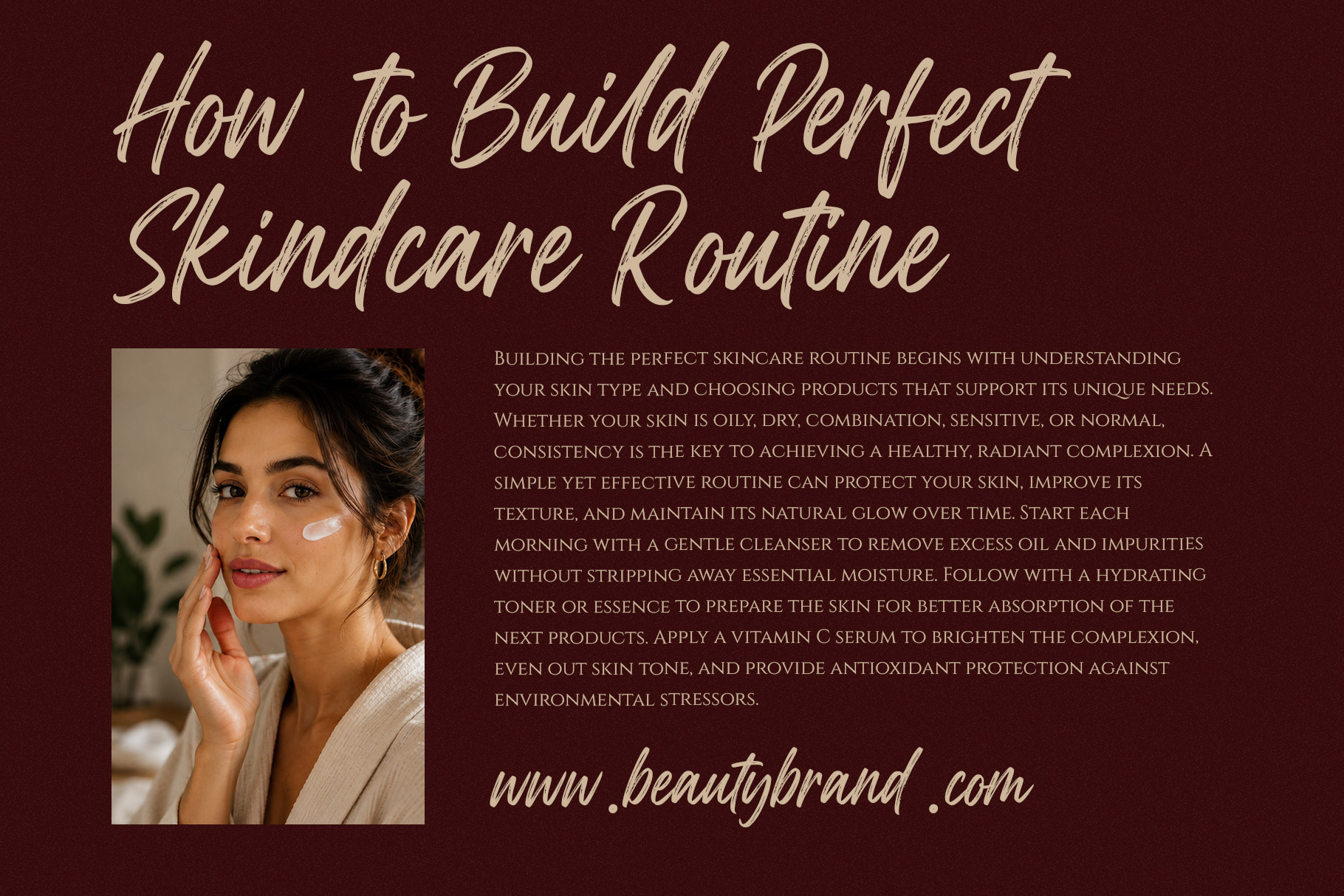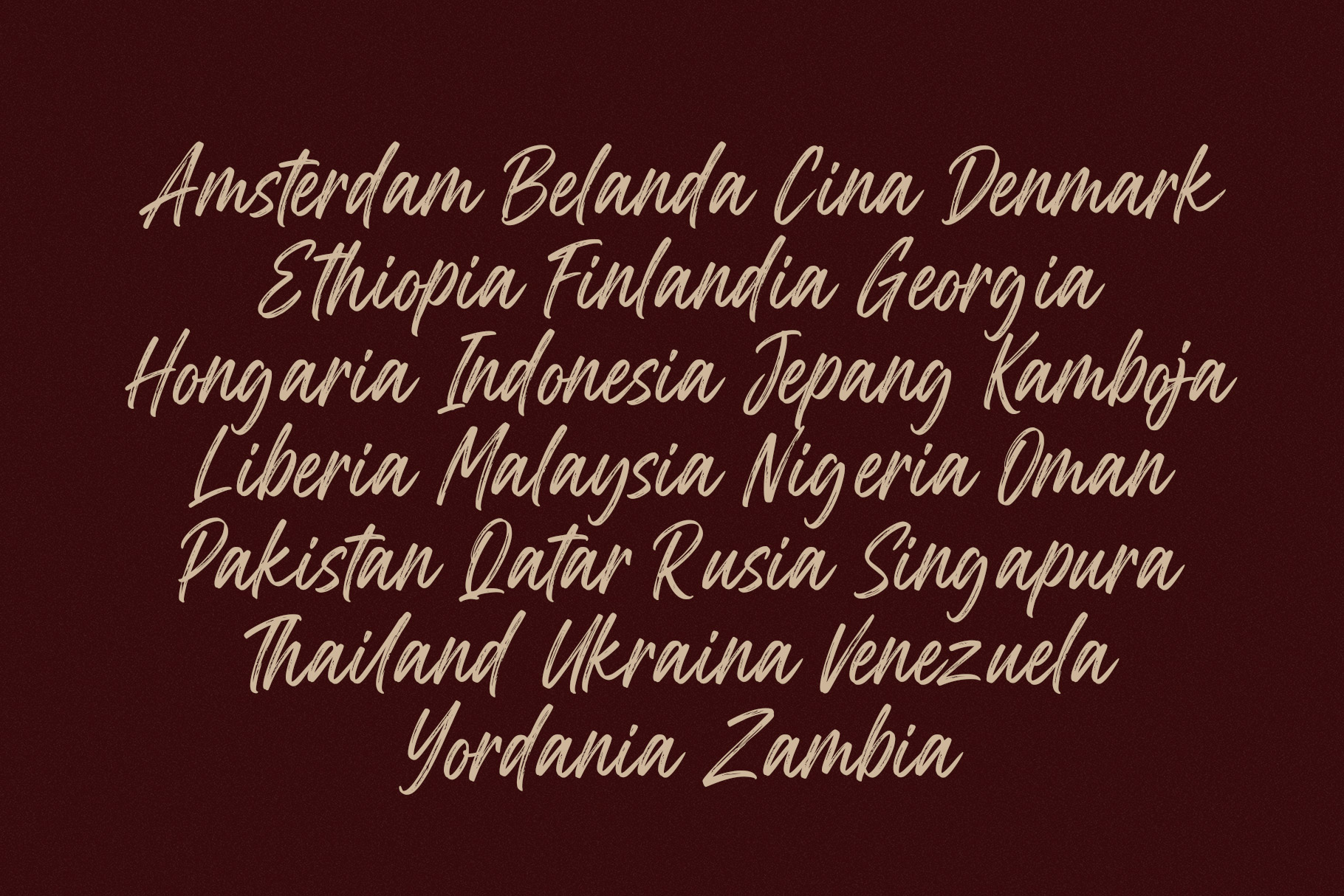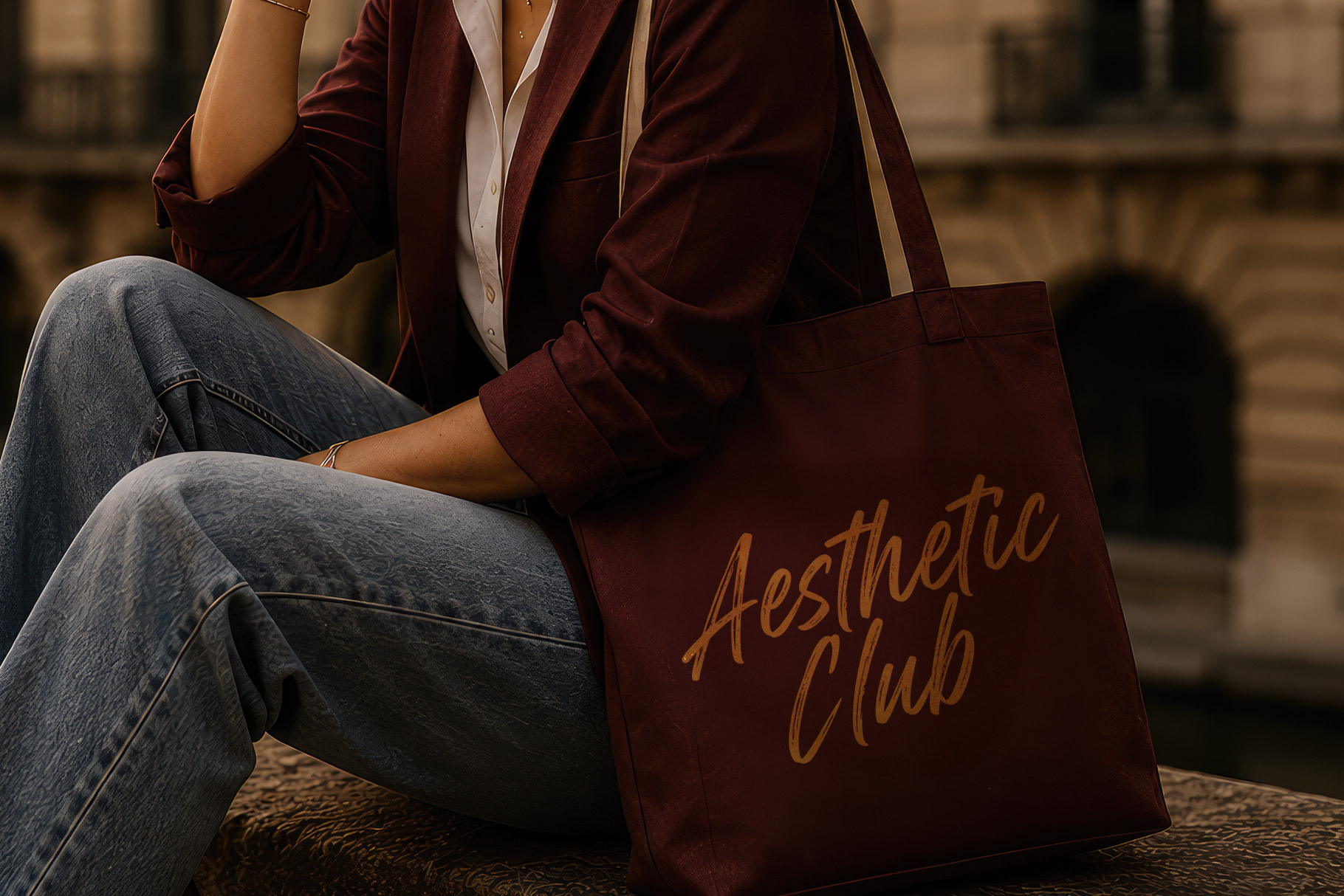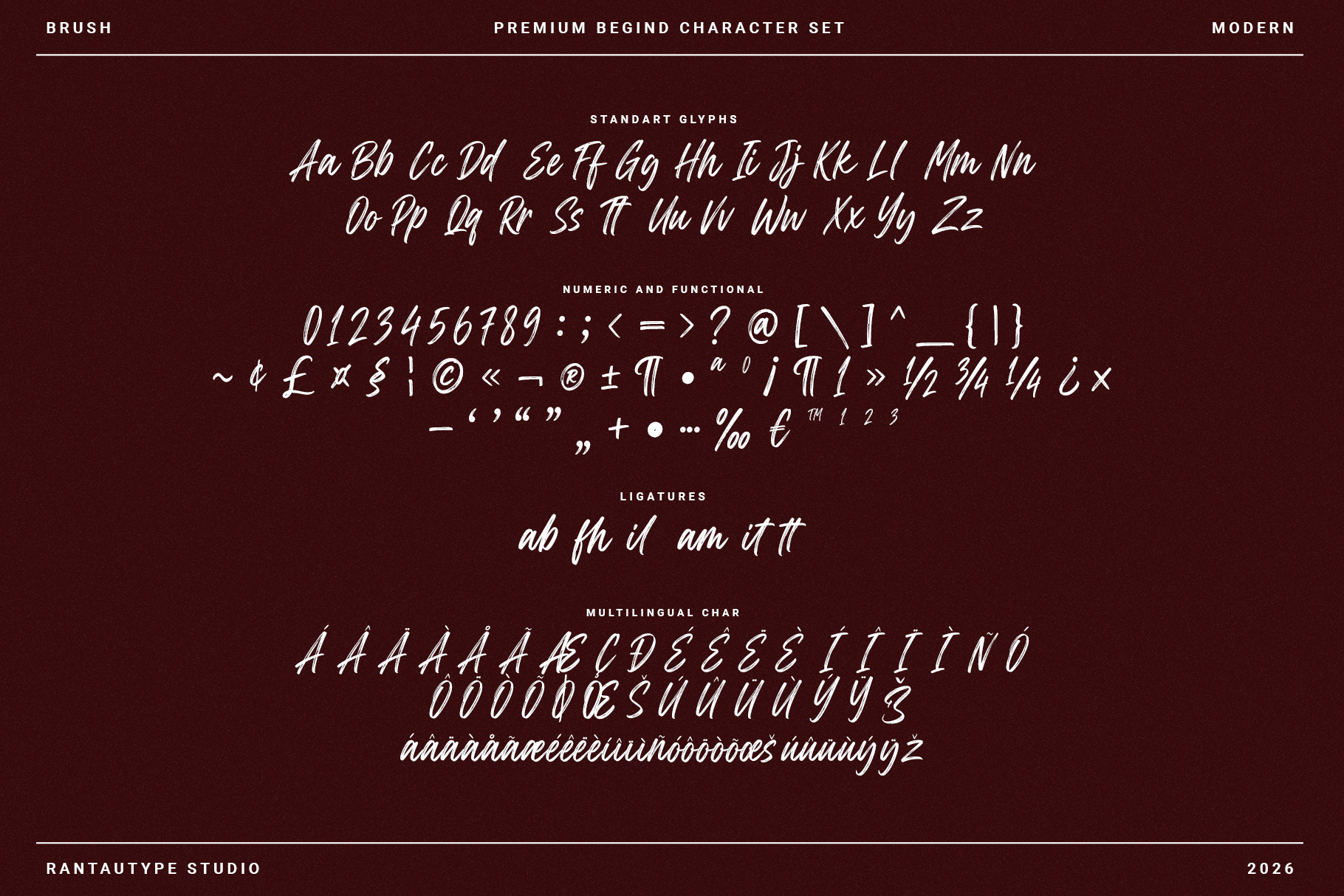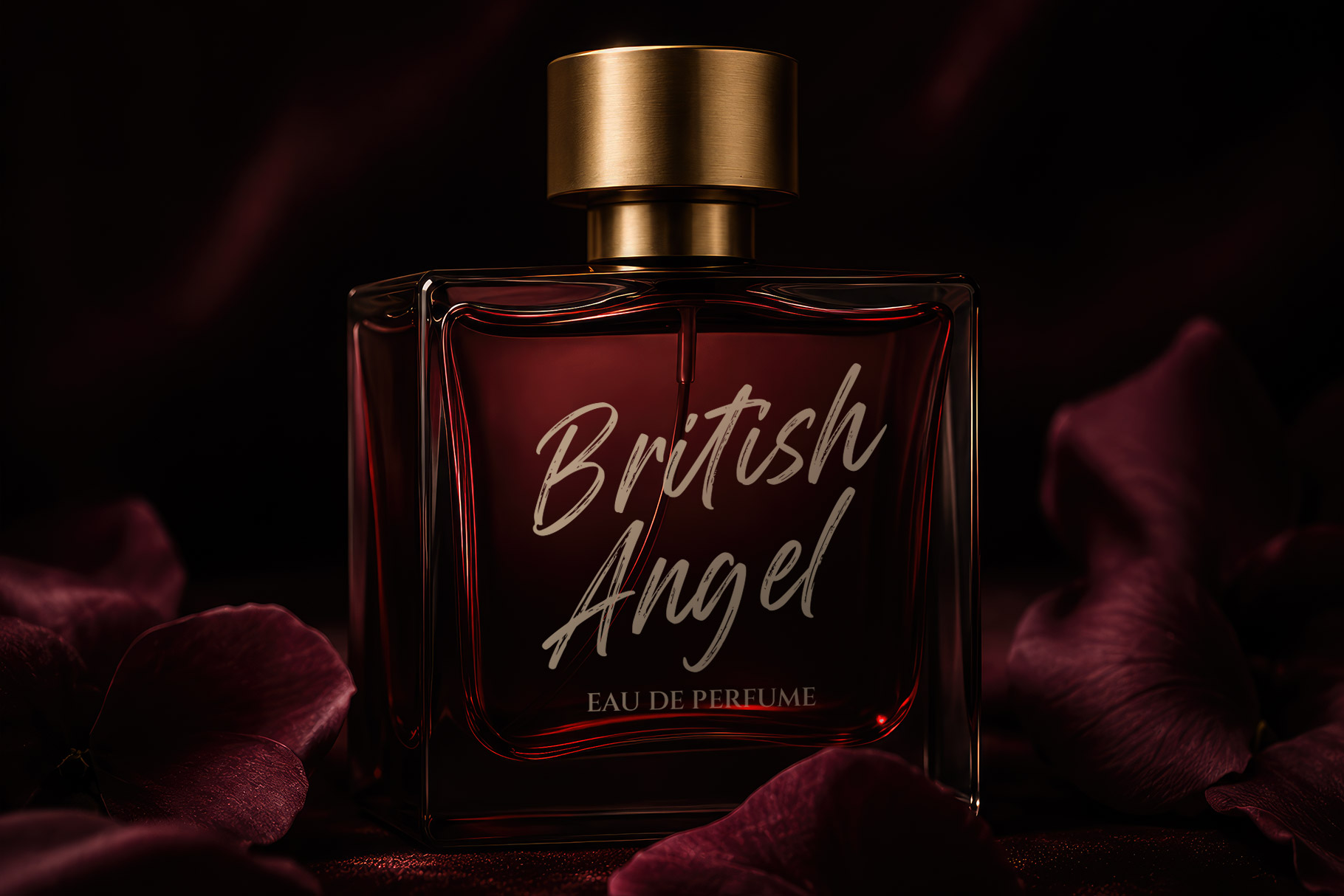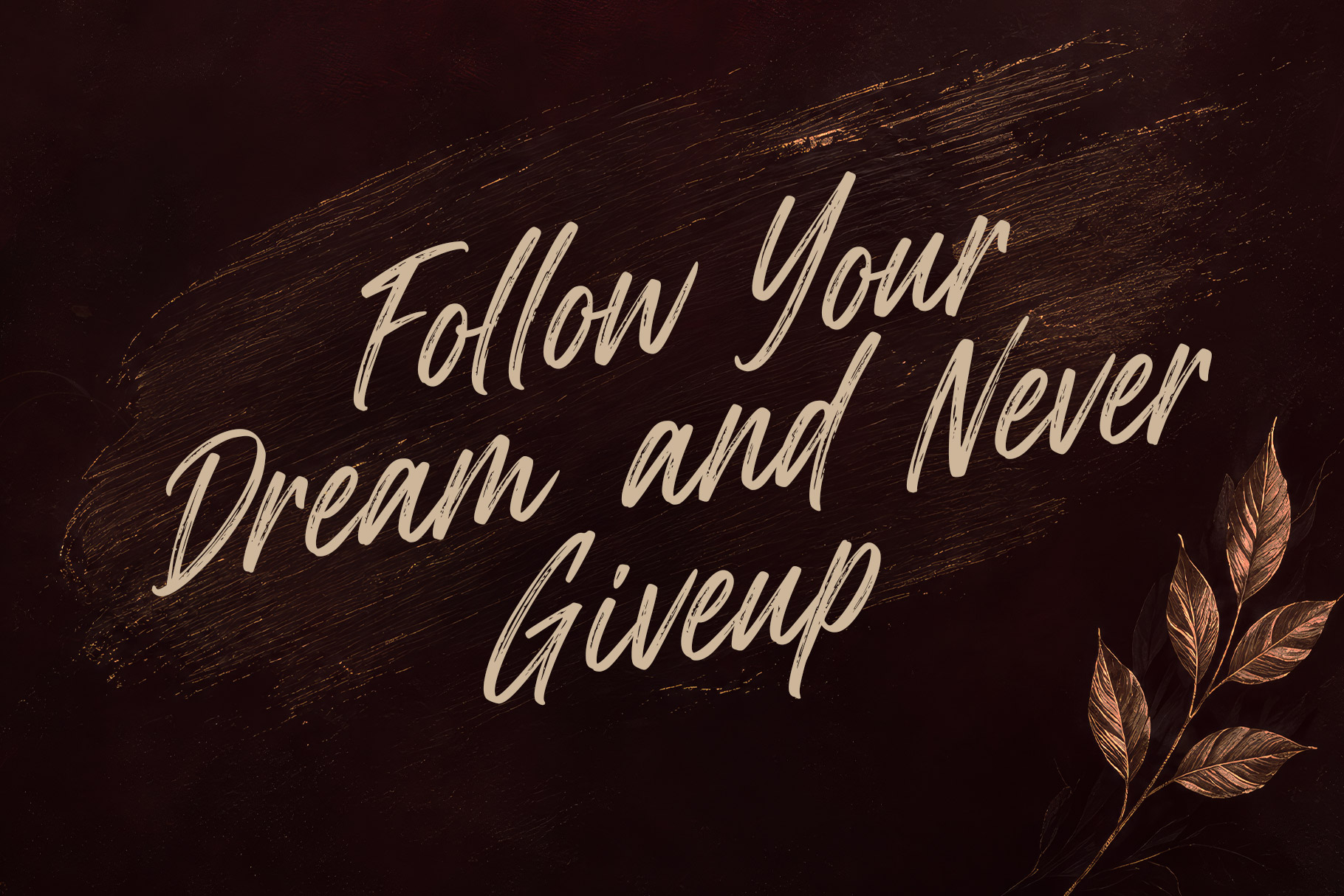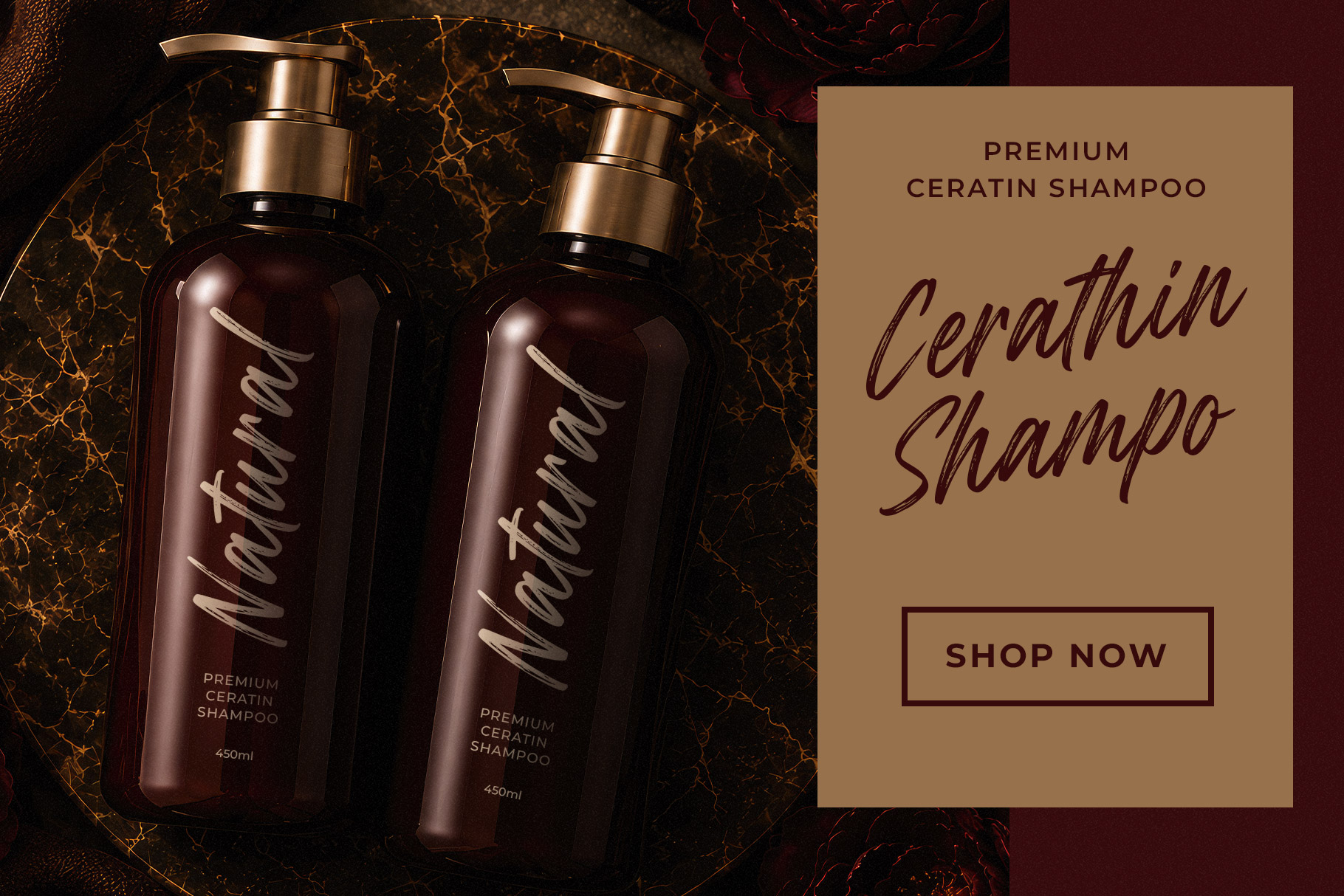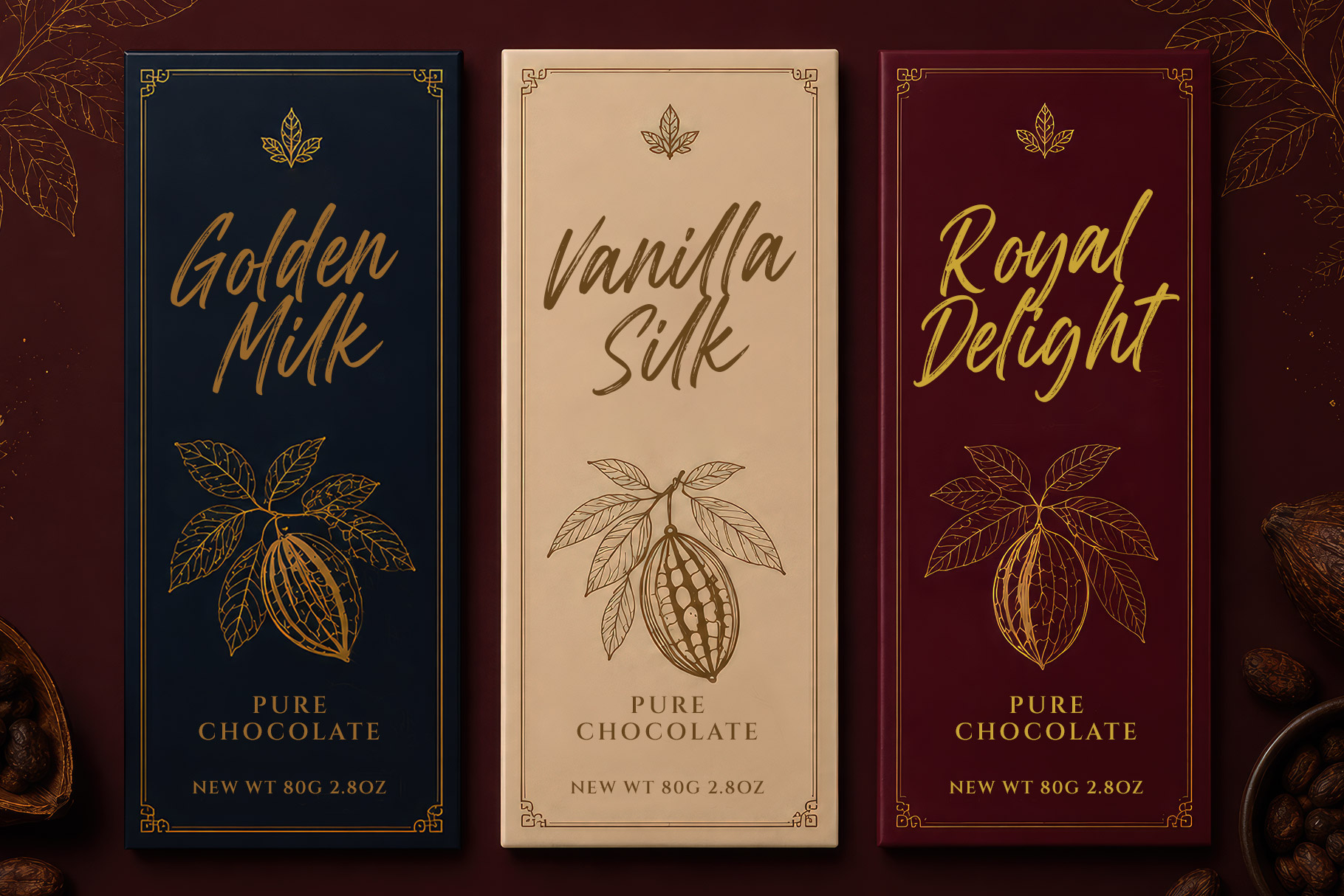
Premium Begind is modern brush typeface that combines effortless handwritten charm with a refined contemporary style. Designed with expressive brush strokes and authentic textured details, this font captures the natural movement of real ink while maintaining excellent readability.
Premium Begind is a perfectly choice for any creative endeavor, creating, modern, lifestyle design such as logotype, title, cover, branding, invitations, wedding designs, display and magazine, social media posts, advertisements, printed quotes, product packaging, corporate brand, product designs, labels, photography, watermarks, special events and any other project with casual touch.